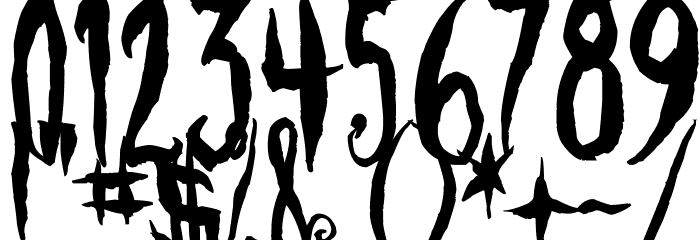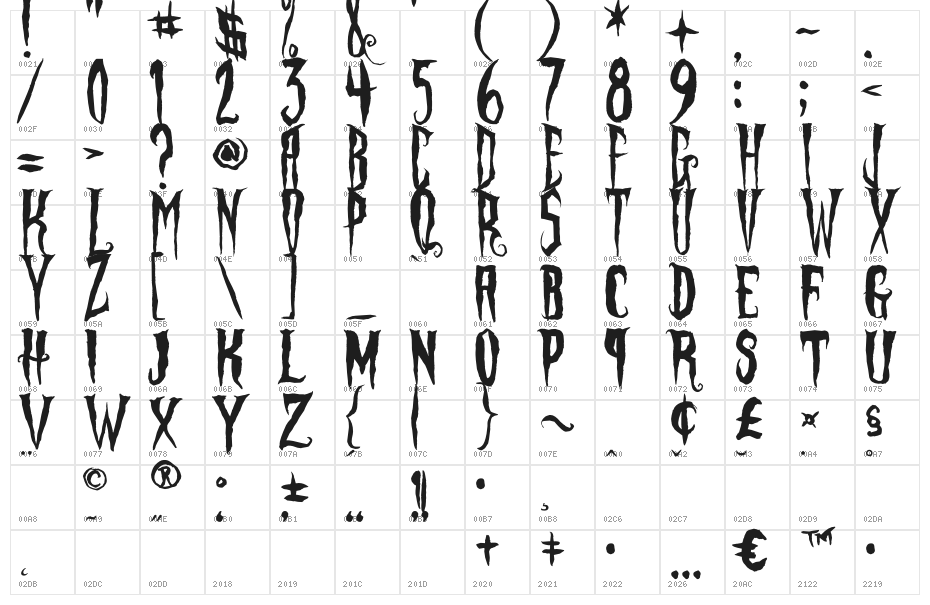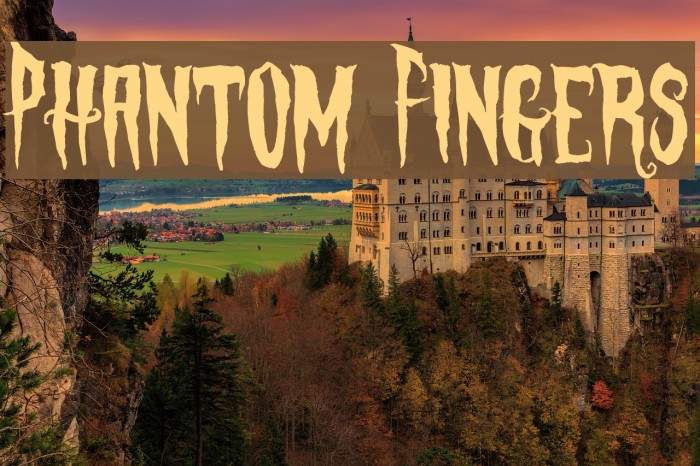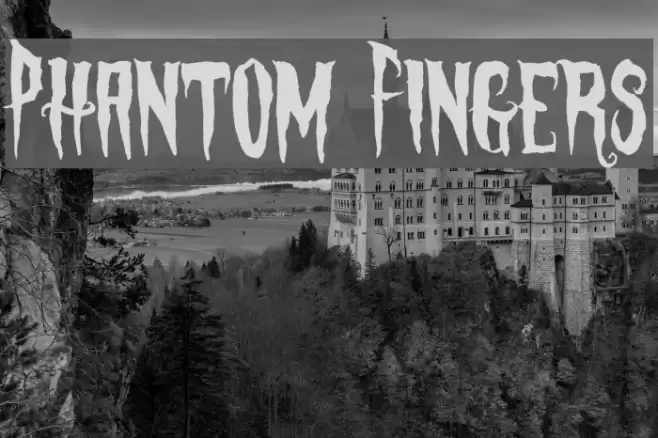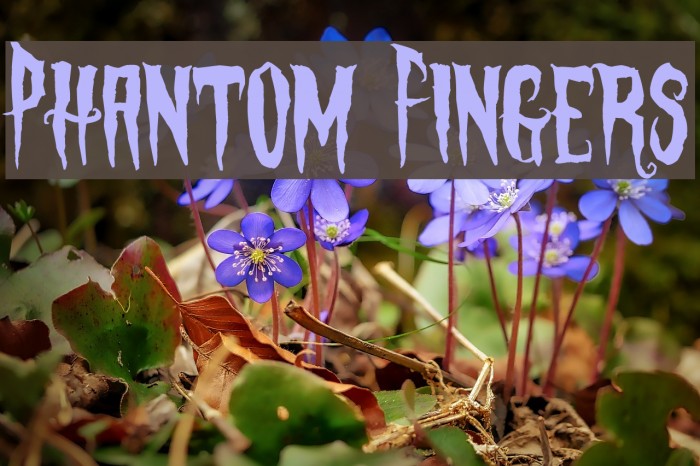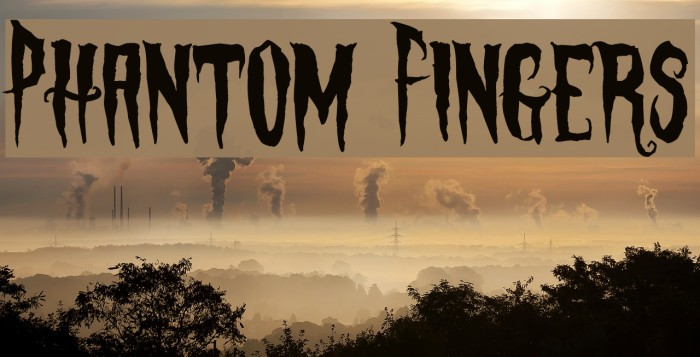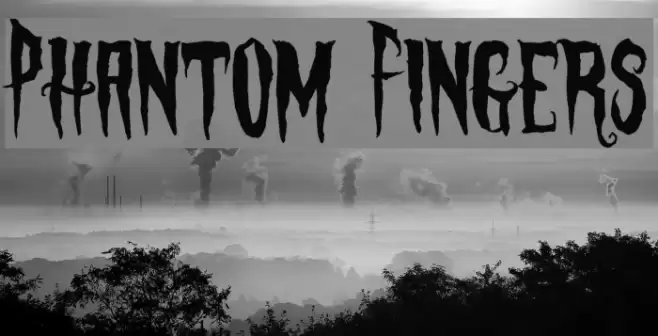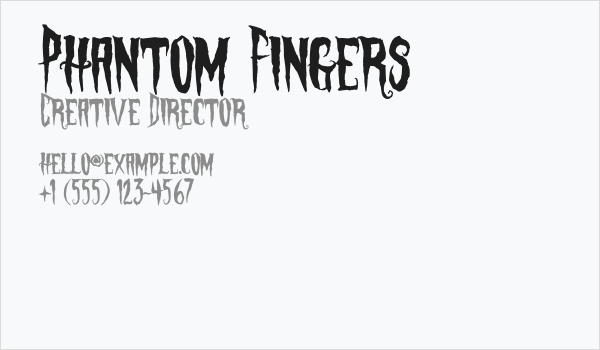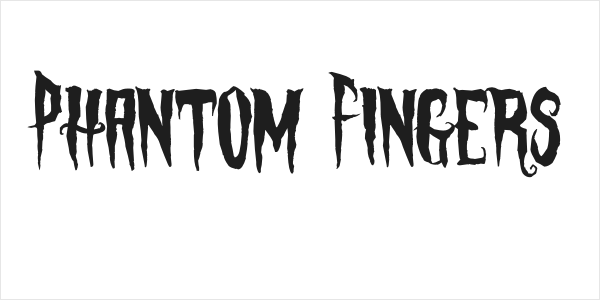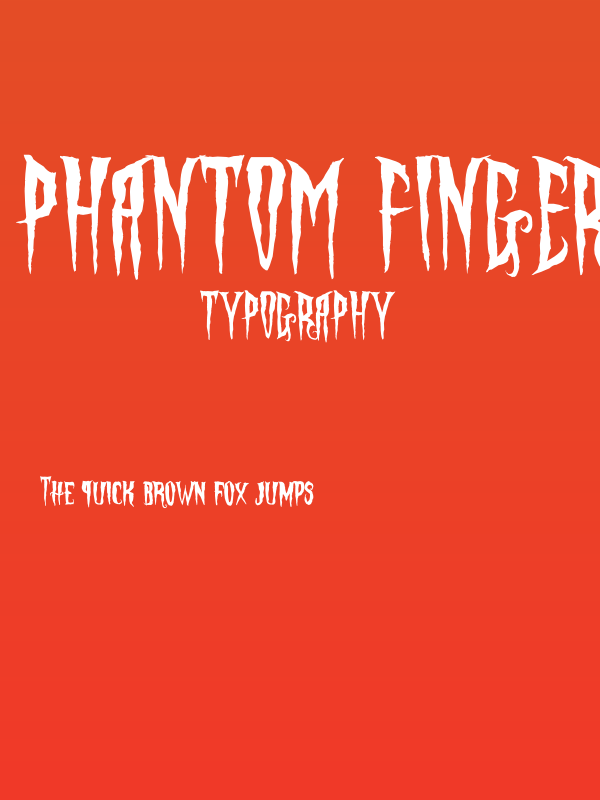
Phantom Fingers Font
Phantom Fingers Description
This font features a highly decorative and eerie style, reminiscent of ghostly or supernatural themes. The characters are elongated with irregular, jagged edges, giving them a haunting appearance. The uppercase and lowercase letters maintain a consistent spooky aesthetic, with some letters incorporating unique flourishes and curves that enhance their mysterious vibe. The numbers and special characters follow the same design principles, ensuring a cohesive look across all glyphs. This font is perfect for projects that require a dramatic and eye-catching typeface, particularly those with a horror or fantasy theme.
| Proposed Projects | Ideal for Halloween invitations, horror movie posters, themed event flyers, and spooky merchandise designs. |